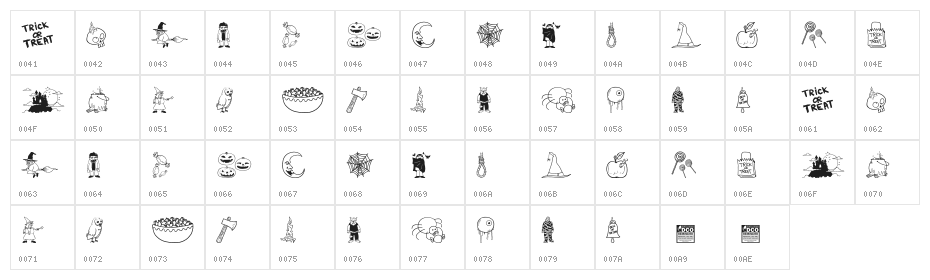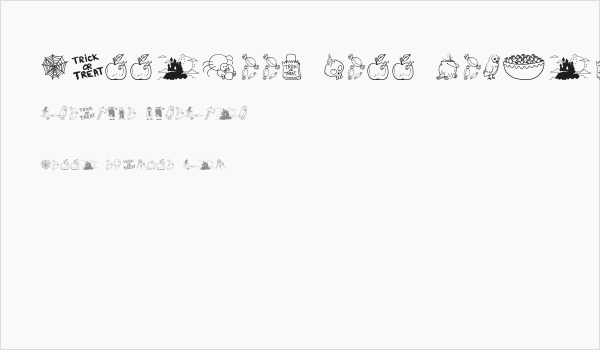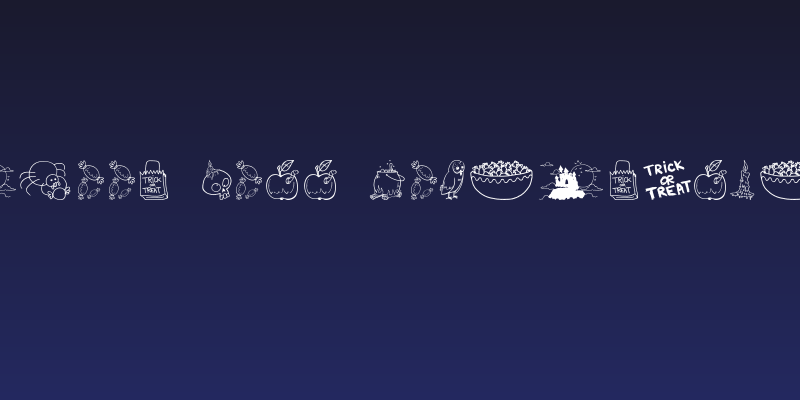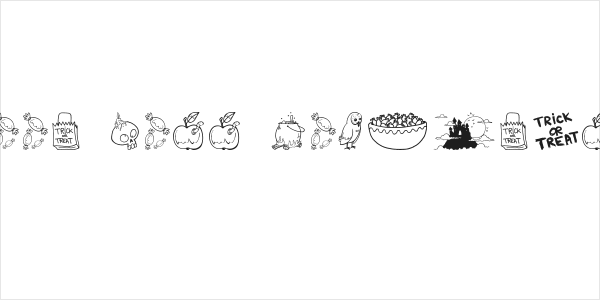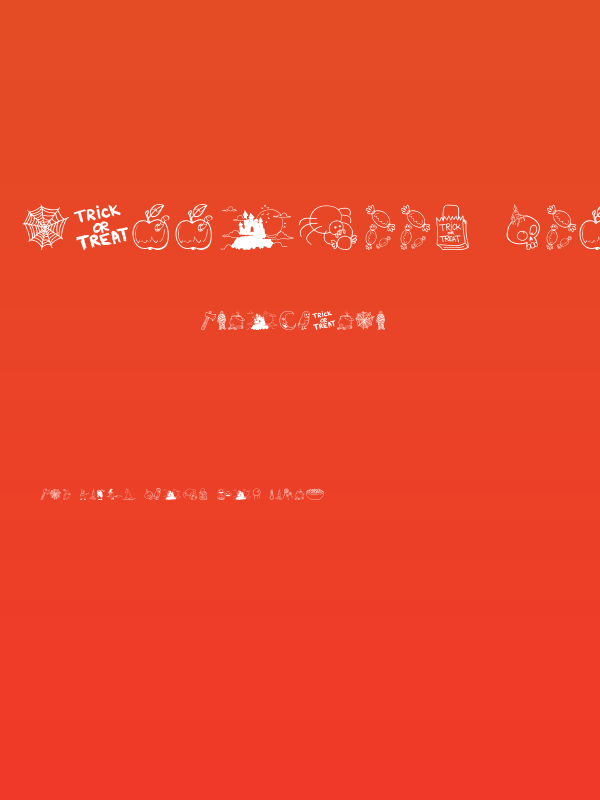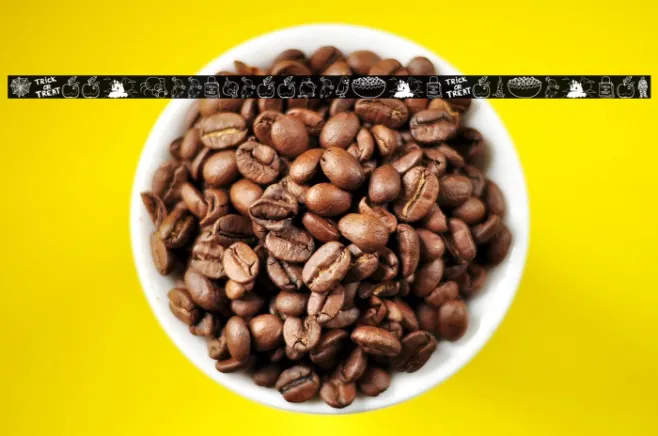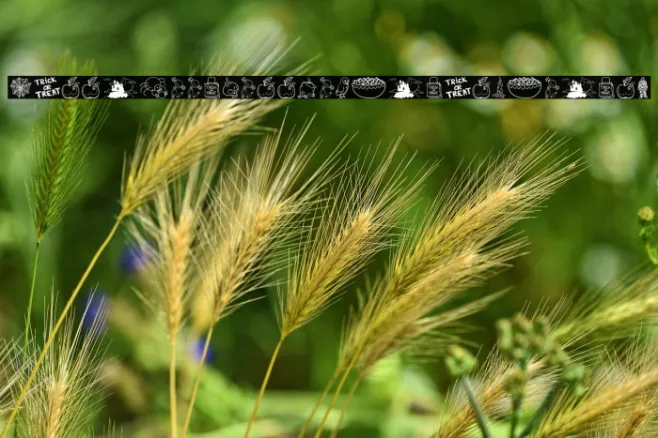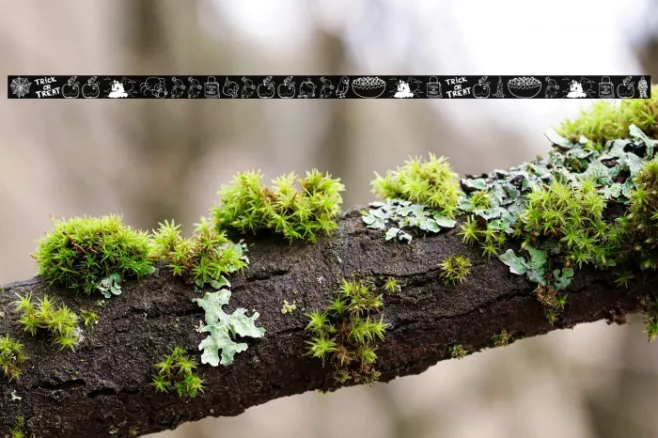
Halloween Bell_PersonalUseOnly Font
Halloween Bell_PersonalUseOnly Description
This playful and whimsical font is filled with Halloween-themed illustrations, capturing the essence of the spooky season. Each character is represented by a unique Halloween icon, such as witches, pumpkins, skulls, and other festive motifs. The style is hand-drawn, giving it a charming and quirky appearance. The illustrations are detailed yet maintain a simplicity that makes them easily recognizable and fun. This font is perfect for adding a festive touch to any Halloween-themed project, offering a creative way to incorporate seasonal imagery into designs.
| Use Case | Logos, Headlines, Decorative elements |
| Proposed Projects | Ideal for Halloween party invitations, themed posters, greeting cards, and festive decorations. |